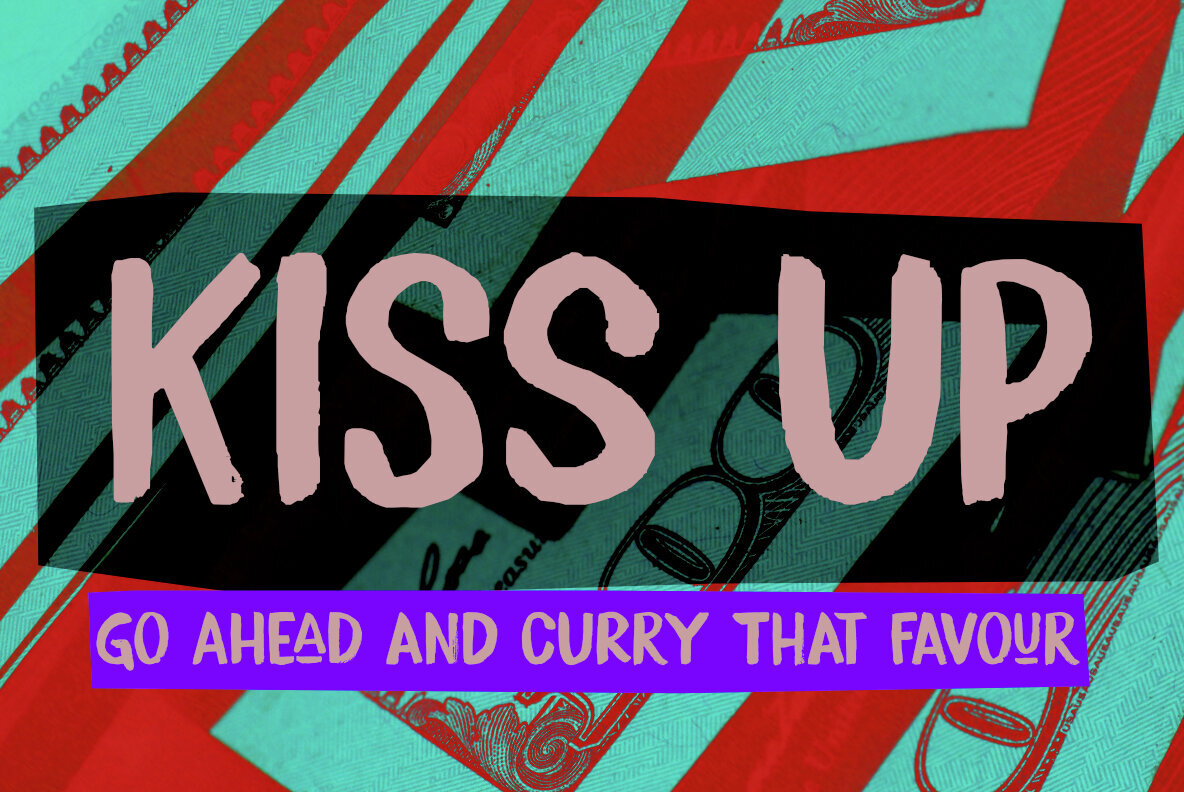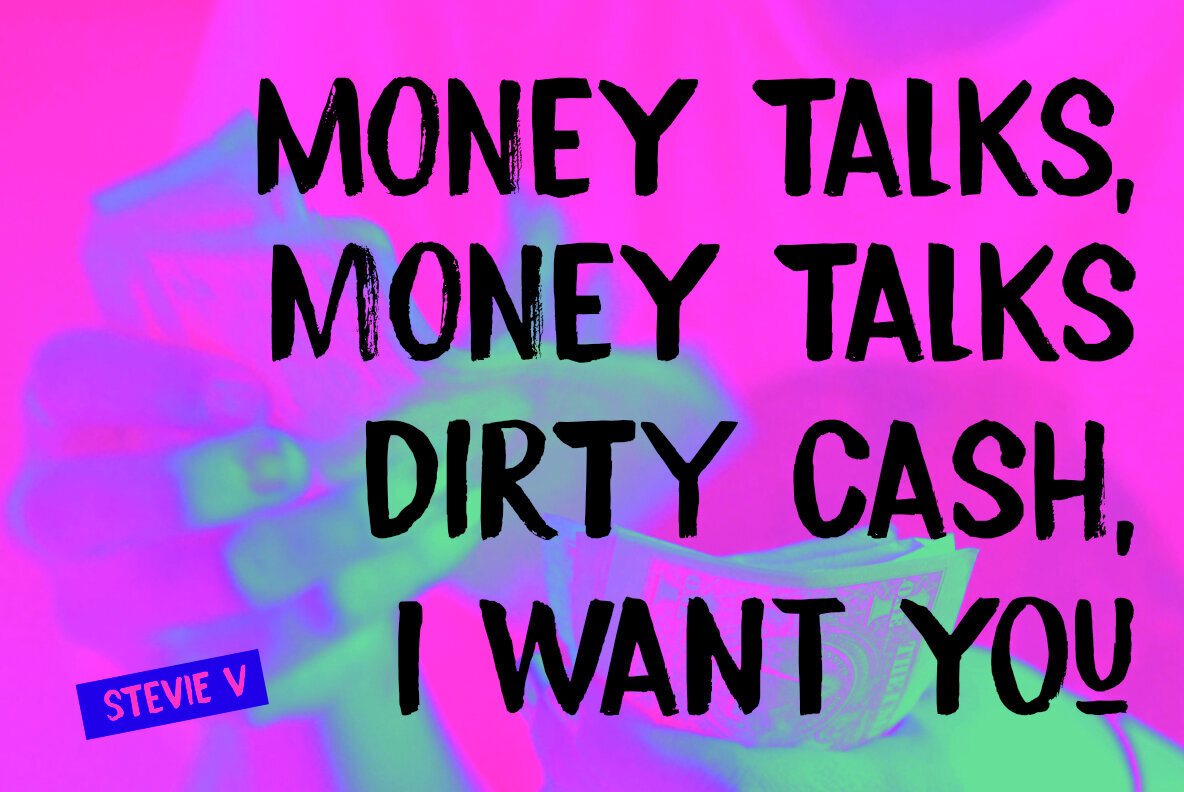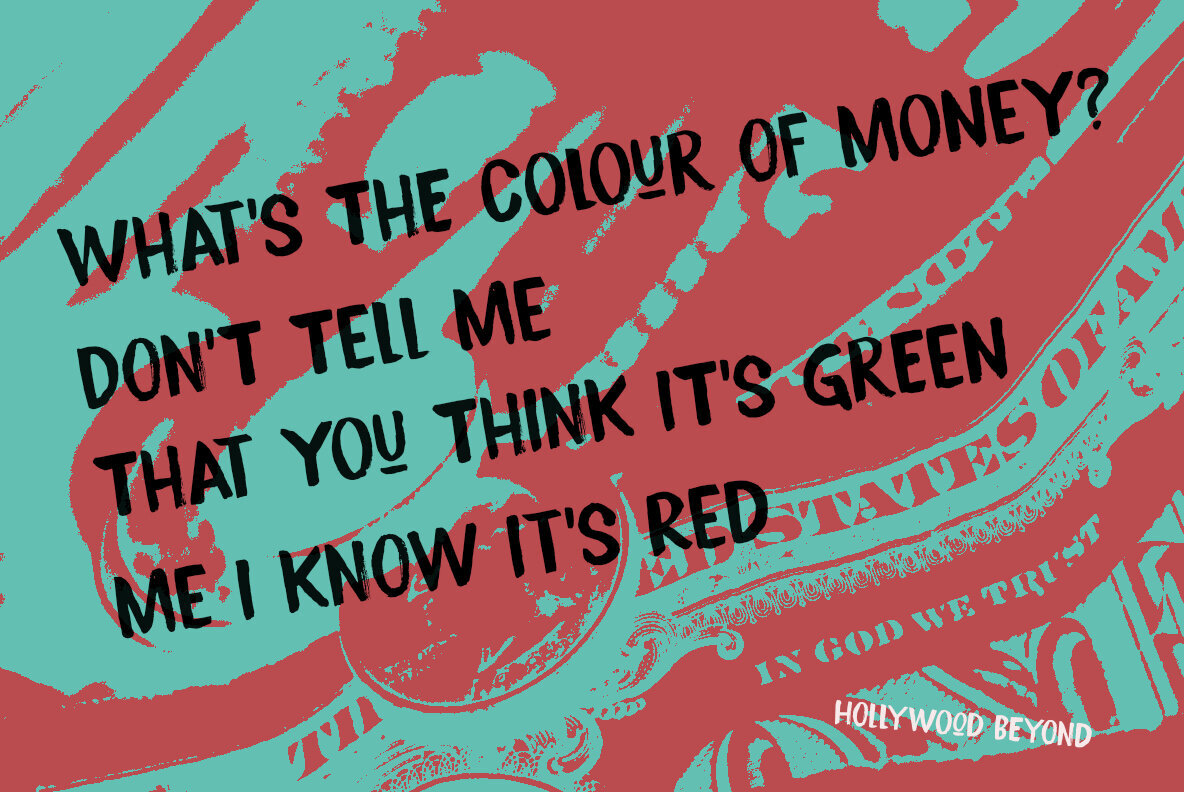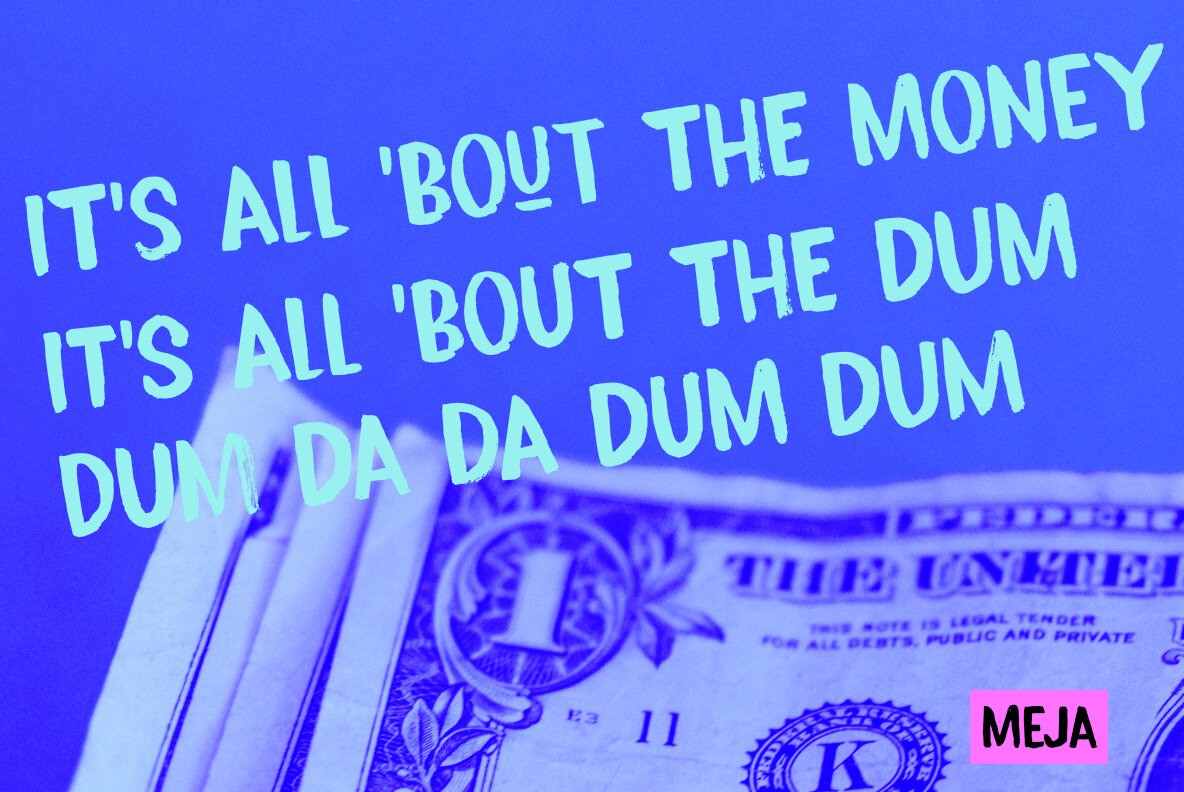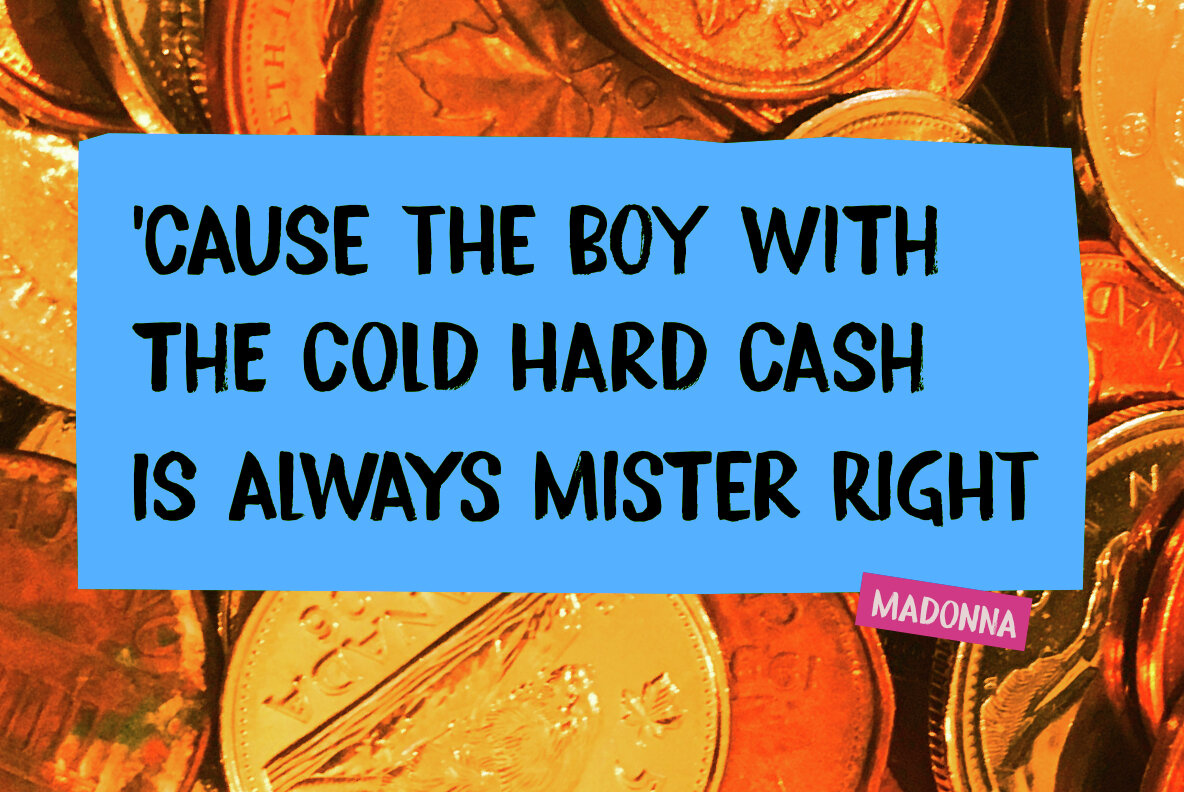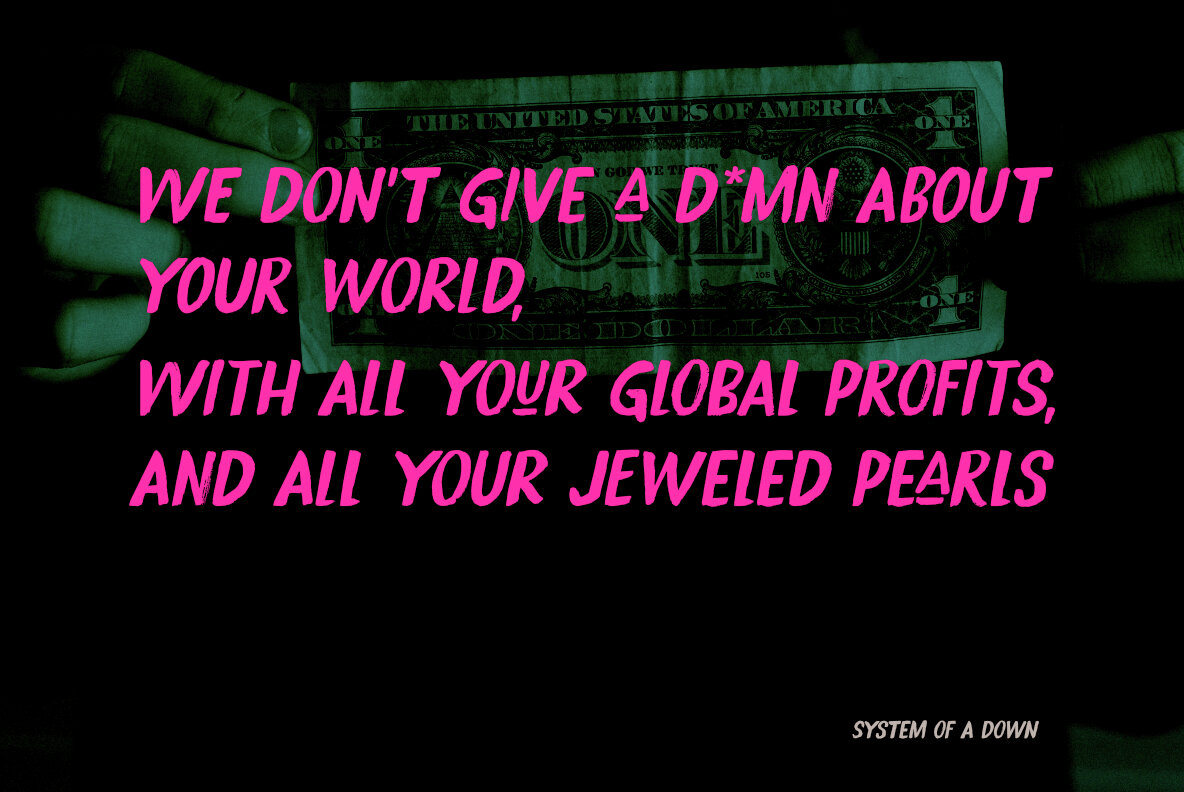
Kiss Up Font
Kiss Up is a unique handmade brush font designed to make a statement across various mediums. Its distinctive style is perfect for adding a creative edge to book covers, product packaging, signage, or even expressing your sentiments on protest signs. This font captures the eye with its bold strokes and dynamic presentation.
The Kiss Up font offers a full set of alternates for lowercase glyphs, enhancing your design possibilities. In addition, it includes extra underscored glyphs and a striking alternative ampersand, providing versatility and flexibility for your projects. Whether for a professional setting or a personal project, Kiss Up delivers a strong visual impact that stands out.